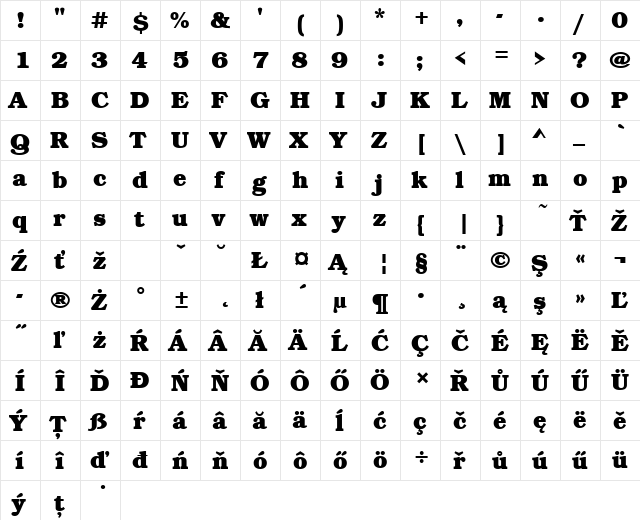
BookmanItcTEEBol Regular Font Preview
BookmanItcTEEBol Regular
BookmanItcTEEBol Regular Font Details
Design Context for BookmanItcTEEBol Typeface
BookmanItcTEEBol is a composed and adaptable typeface that performs quietly and consistently across a wide range of design contexts.